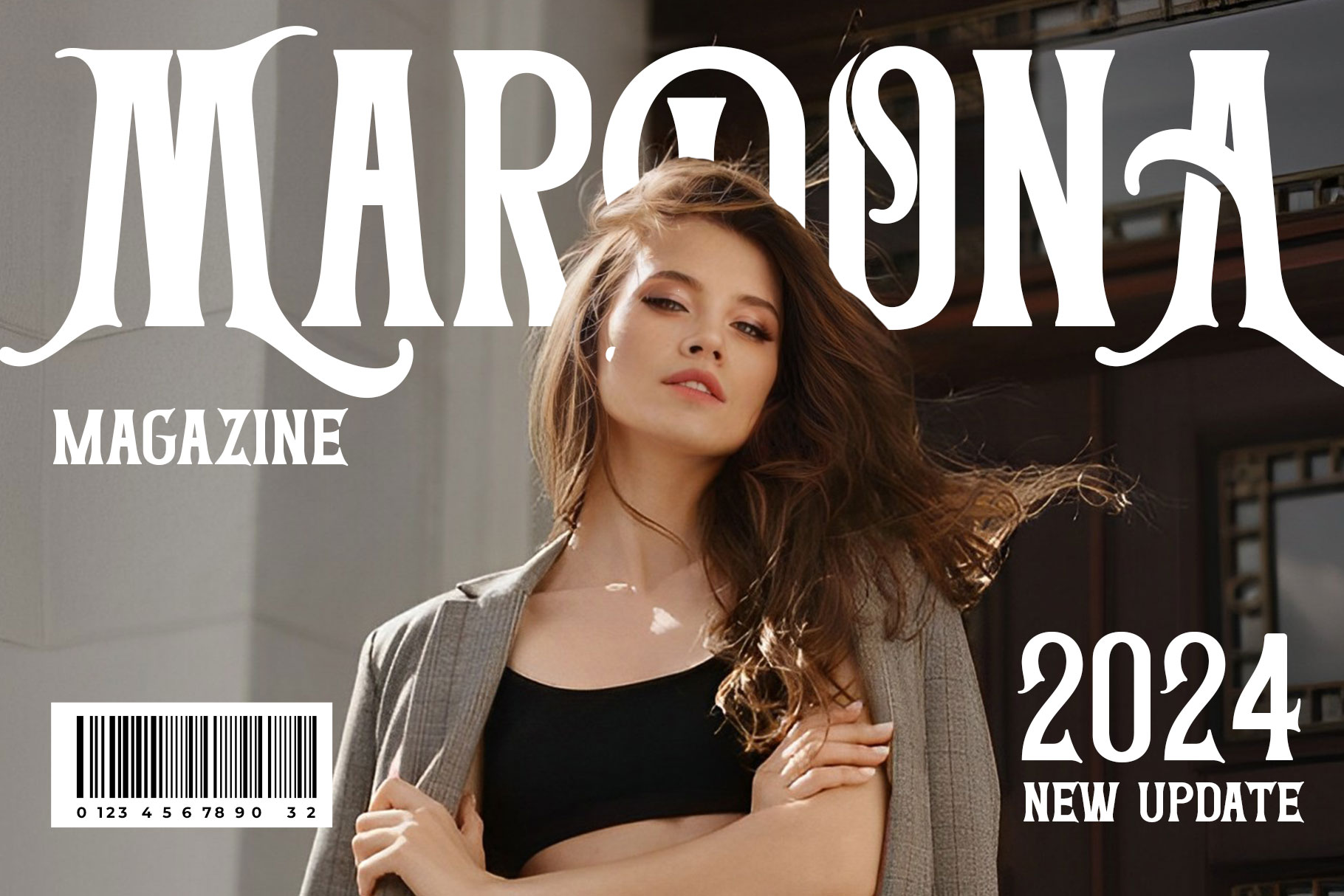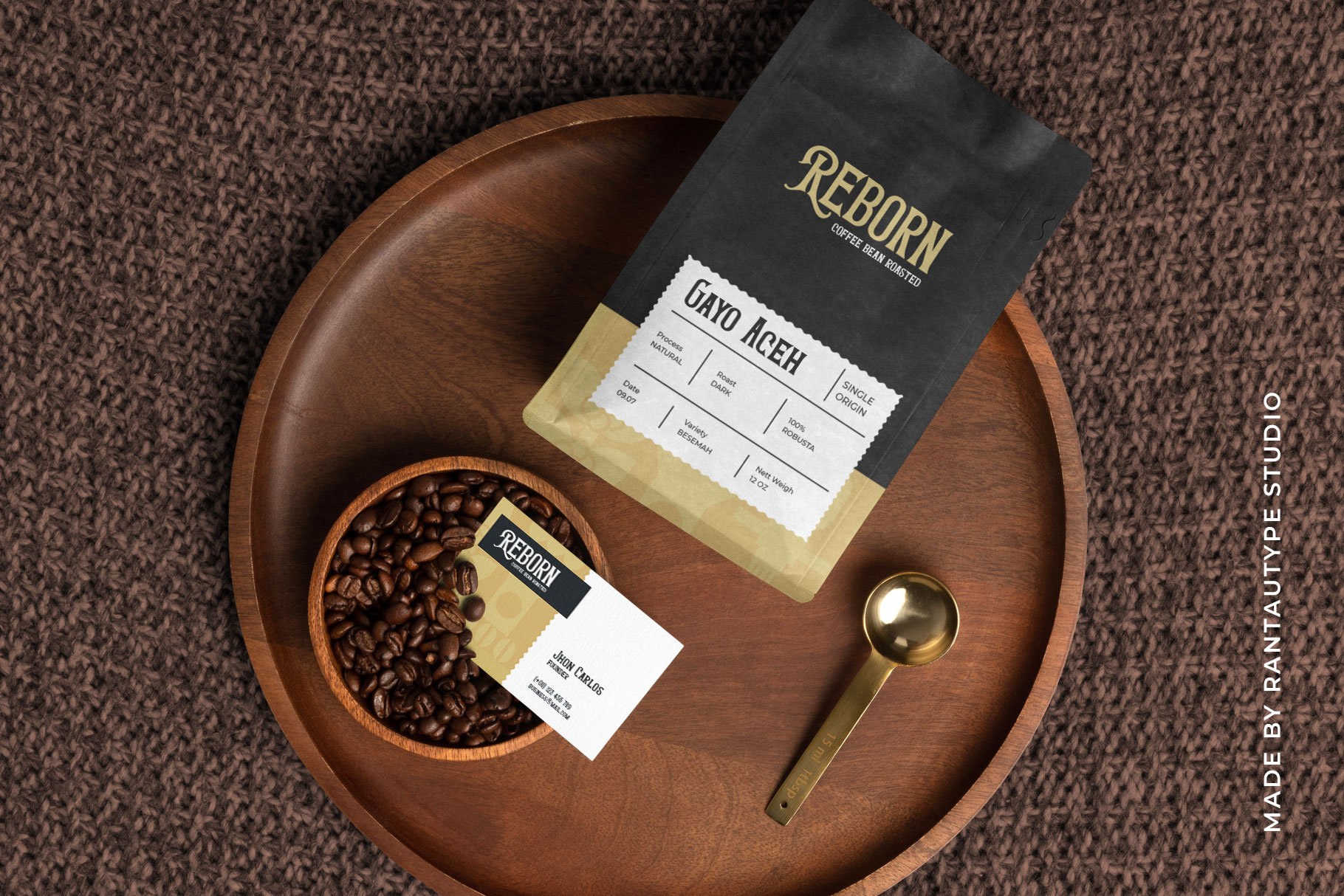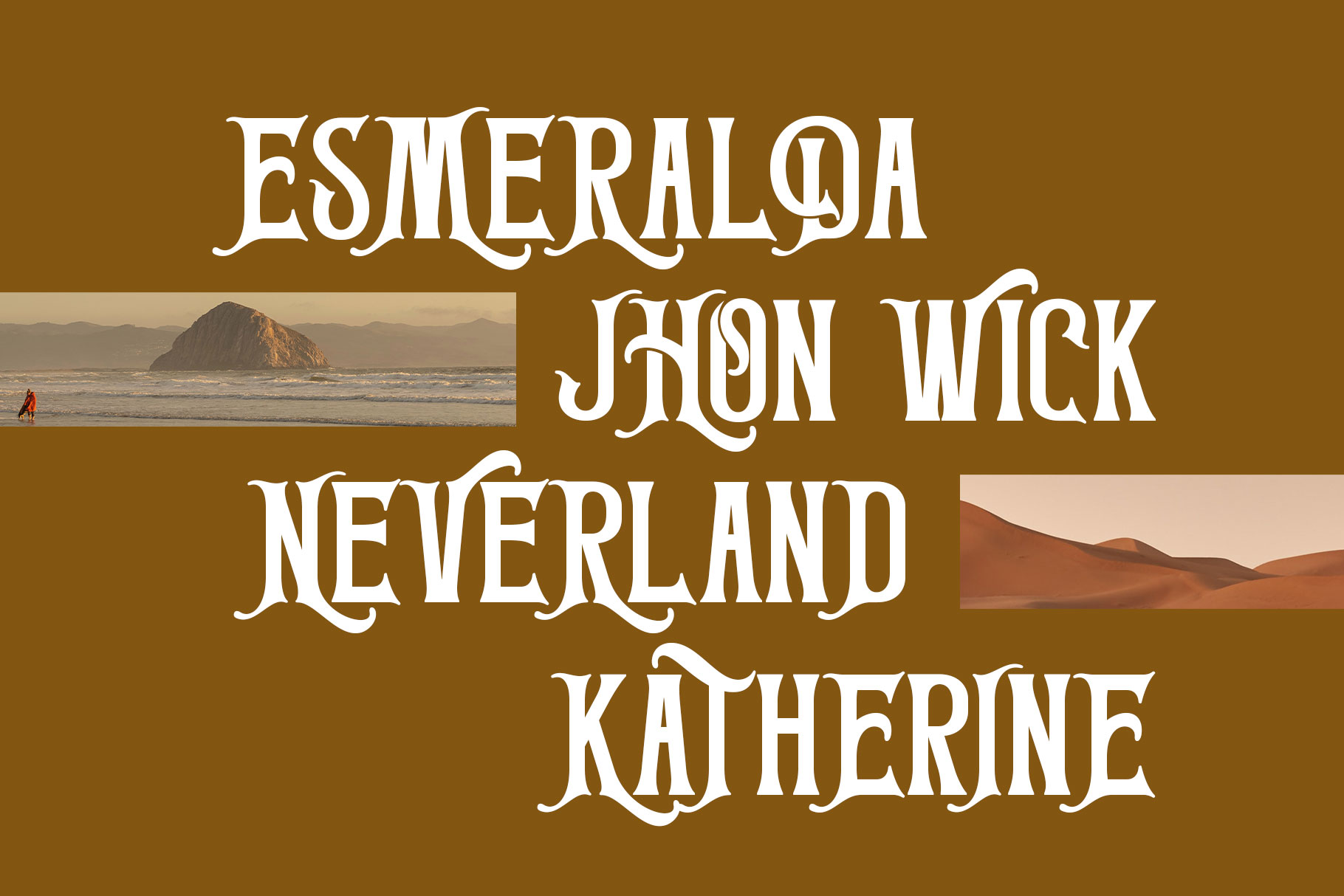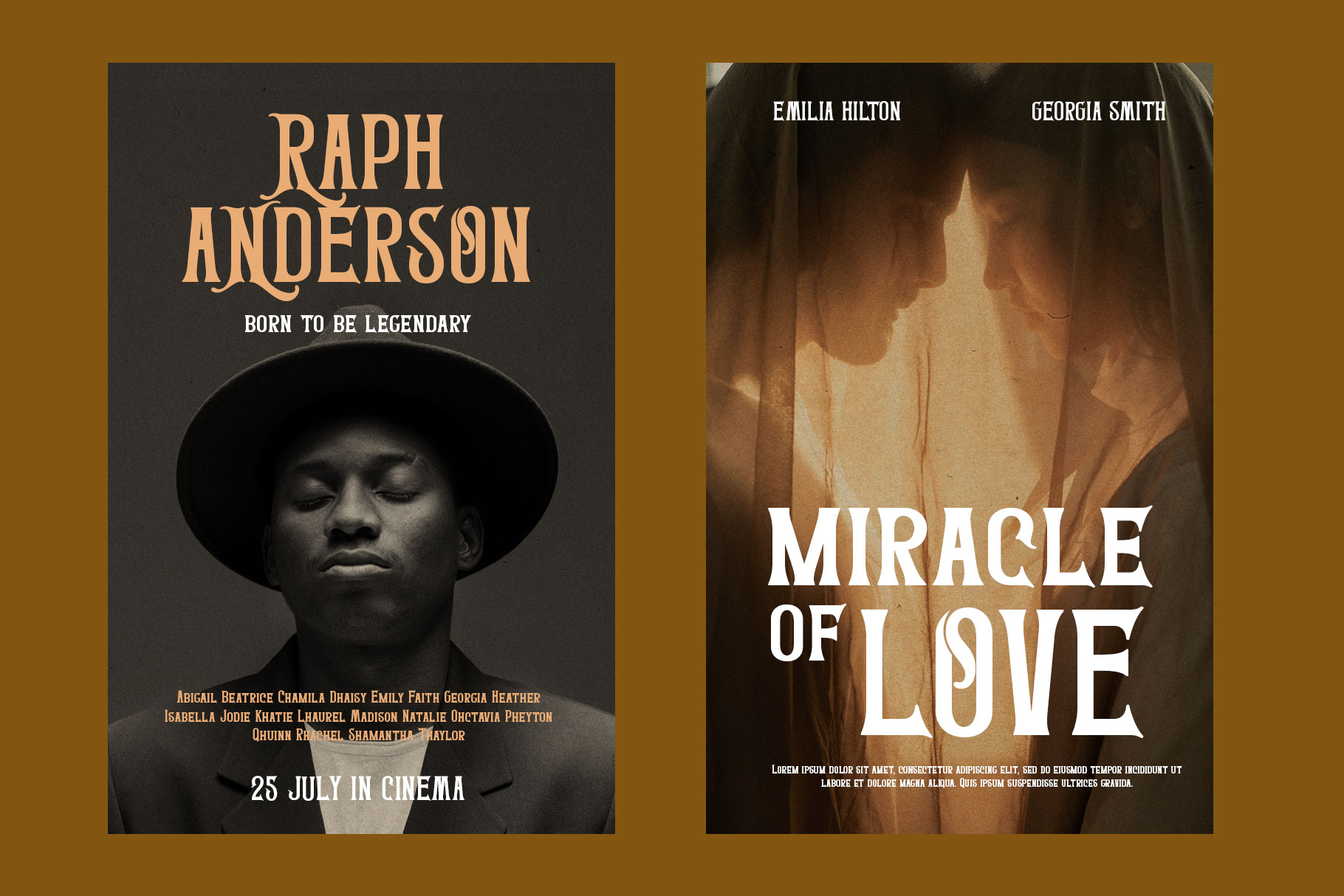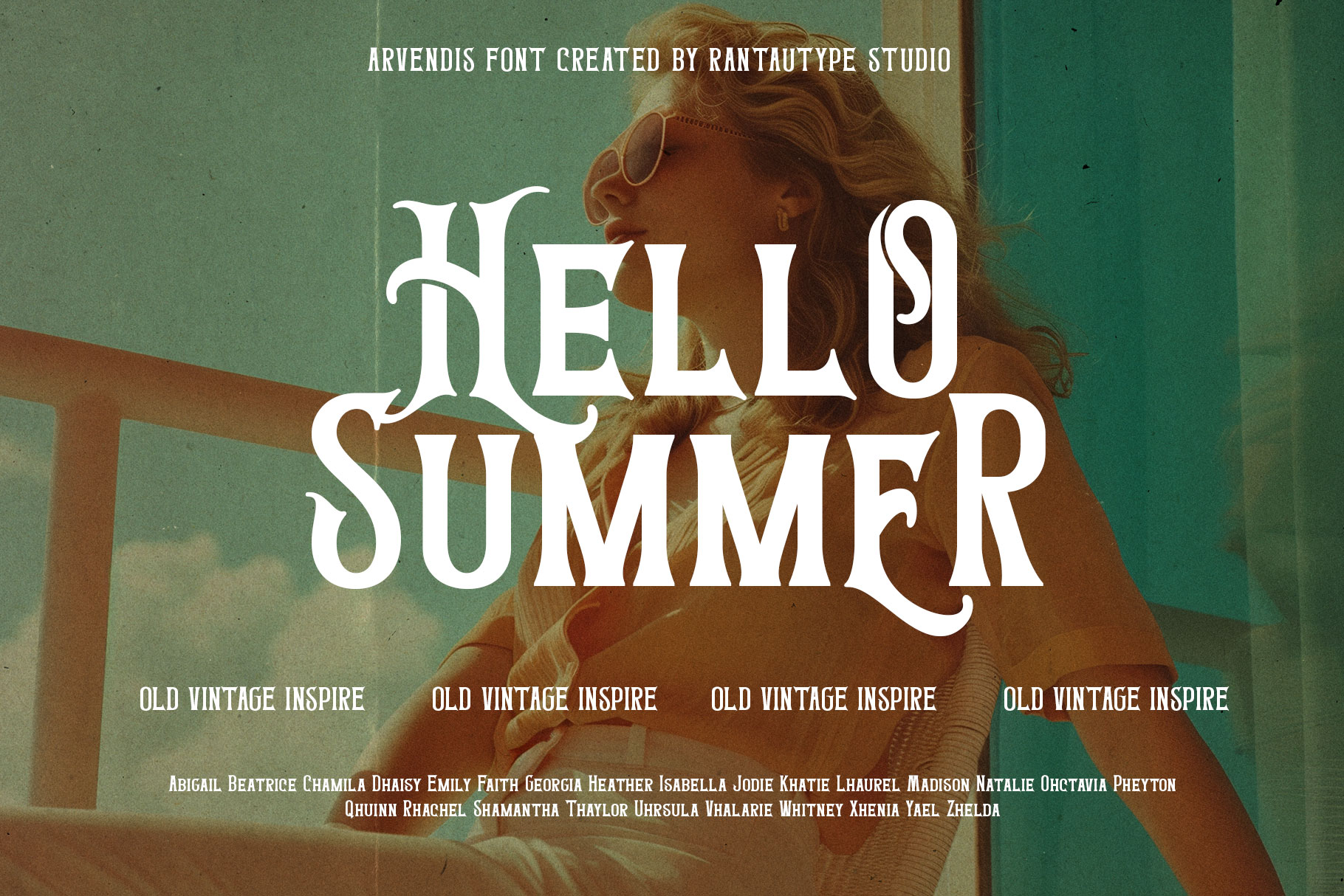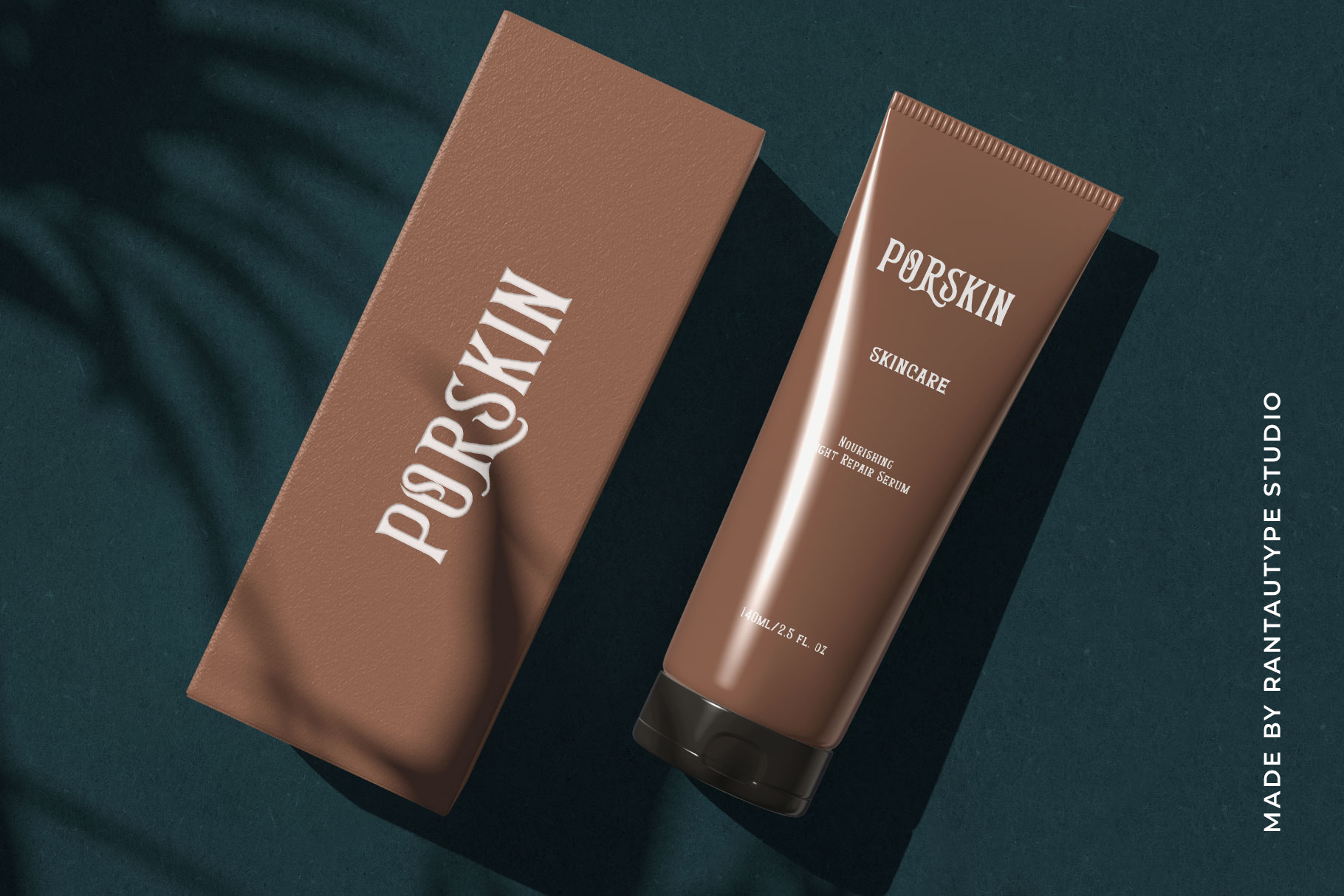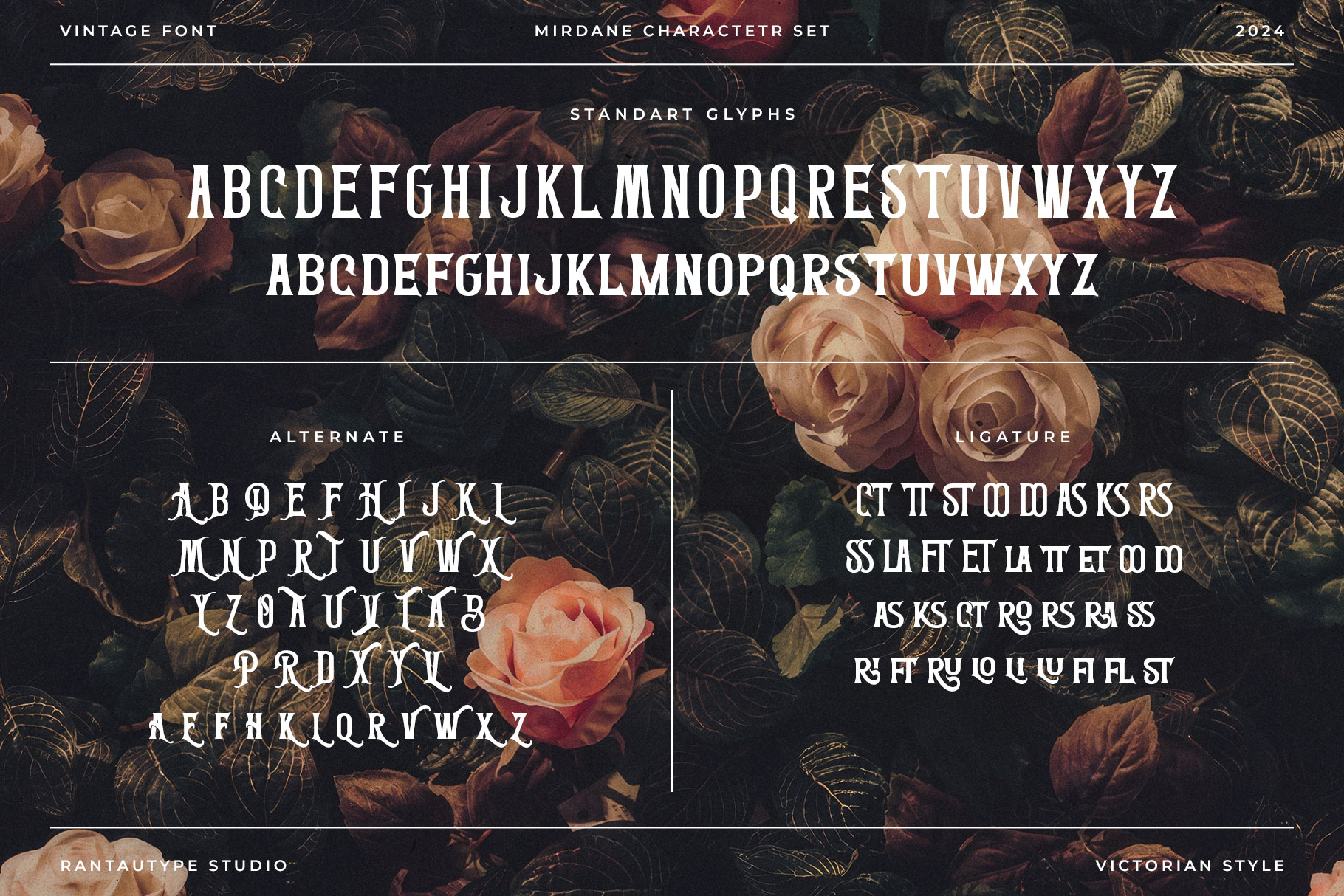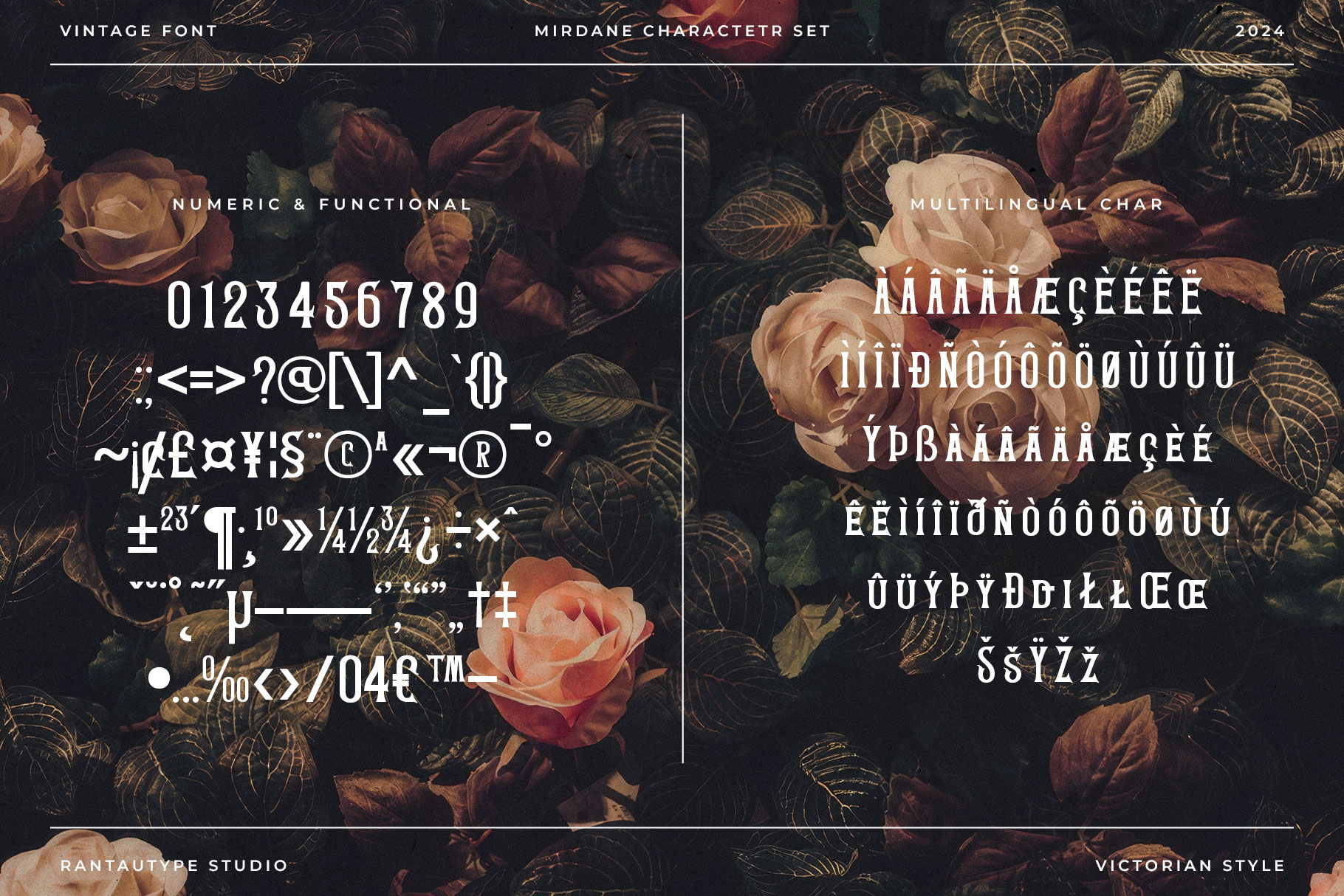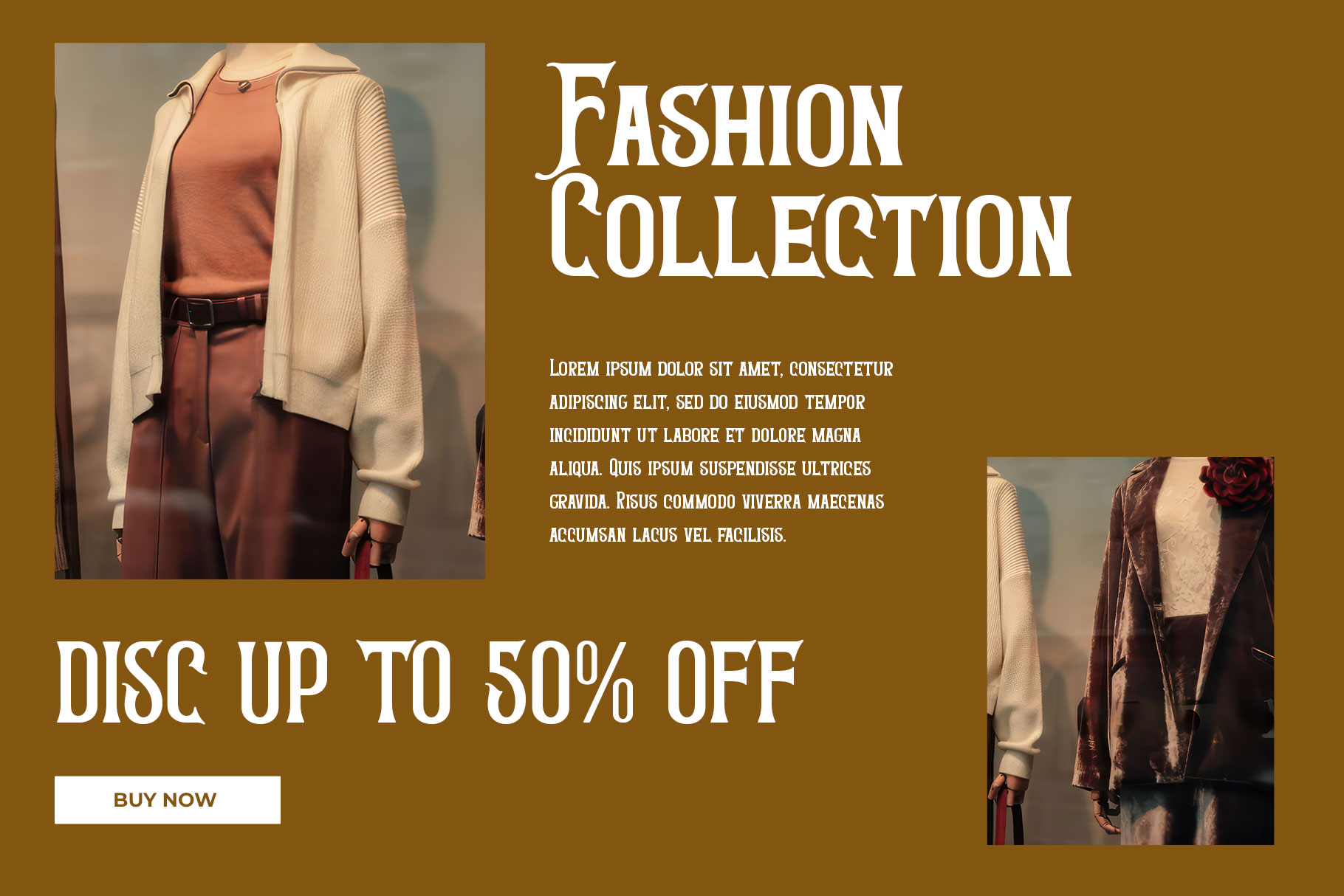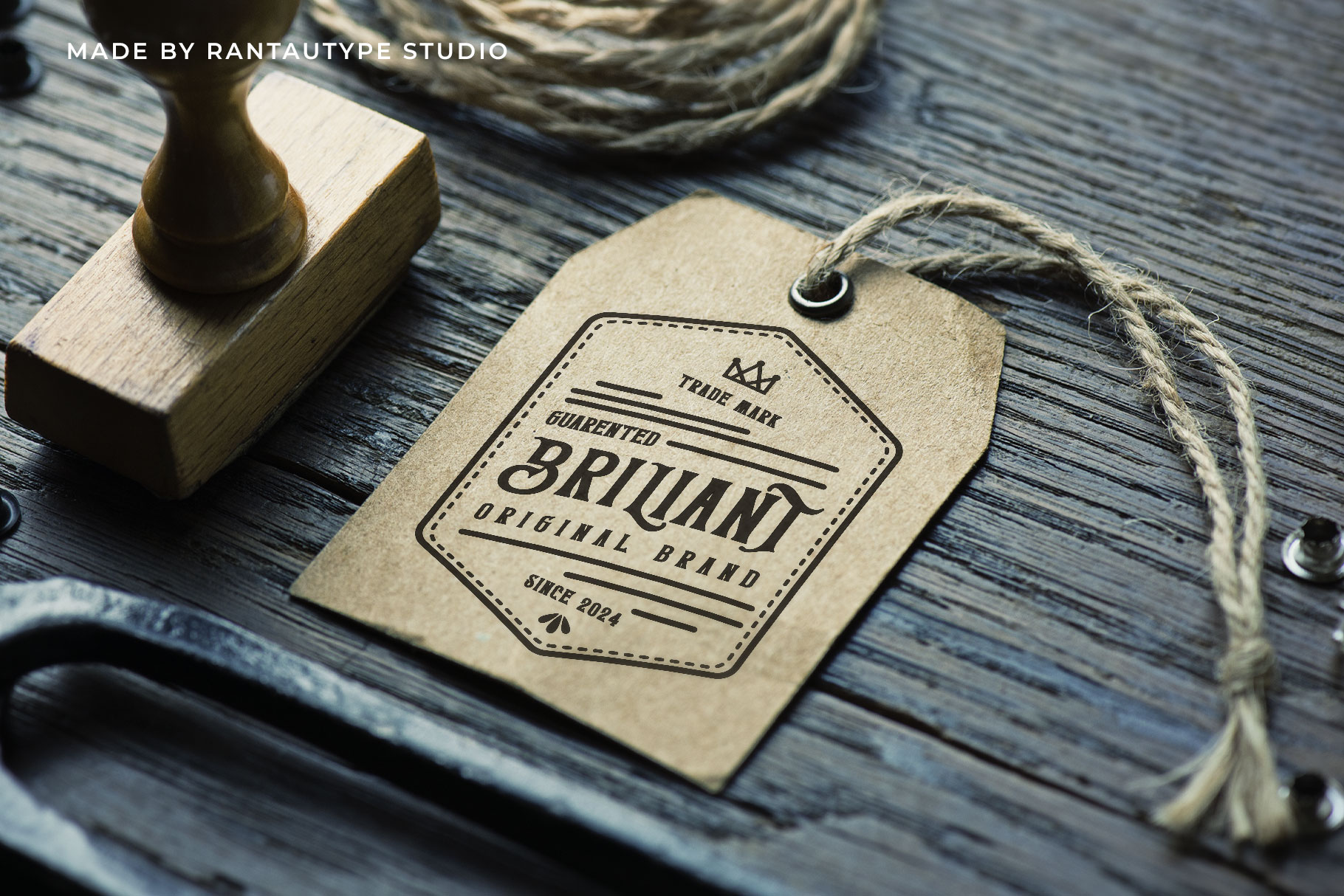
Mirdane a Vintage Font
Mirdane is vintage font with retro aesthetics look. “Mirdane” its classic display style, it evokes a sense of nostalgia and adds a touch of ornamental and decorative flair to your designs. Mirdane come with more versatile with the addition of stylistic alternates that you can mix and match to make your design stand out even more.
Mirdane is a perfectly choice for any creative endeavor, chic, lifestyle design such as logos, advertisements, stationery, branding project, display and magazine, invitation, corporate brand, product design, label, business project and many other project with vintage/ retro touch.